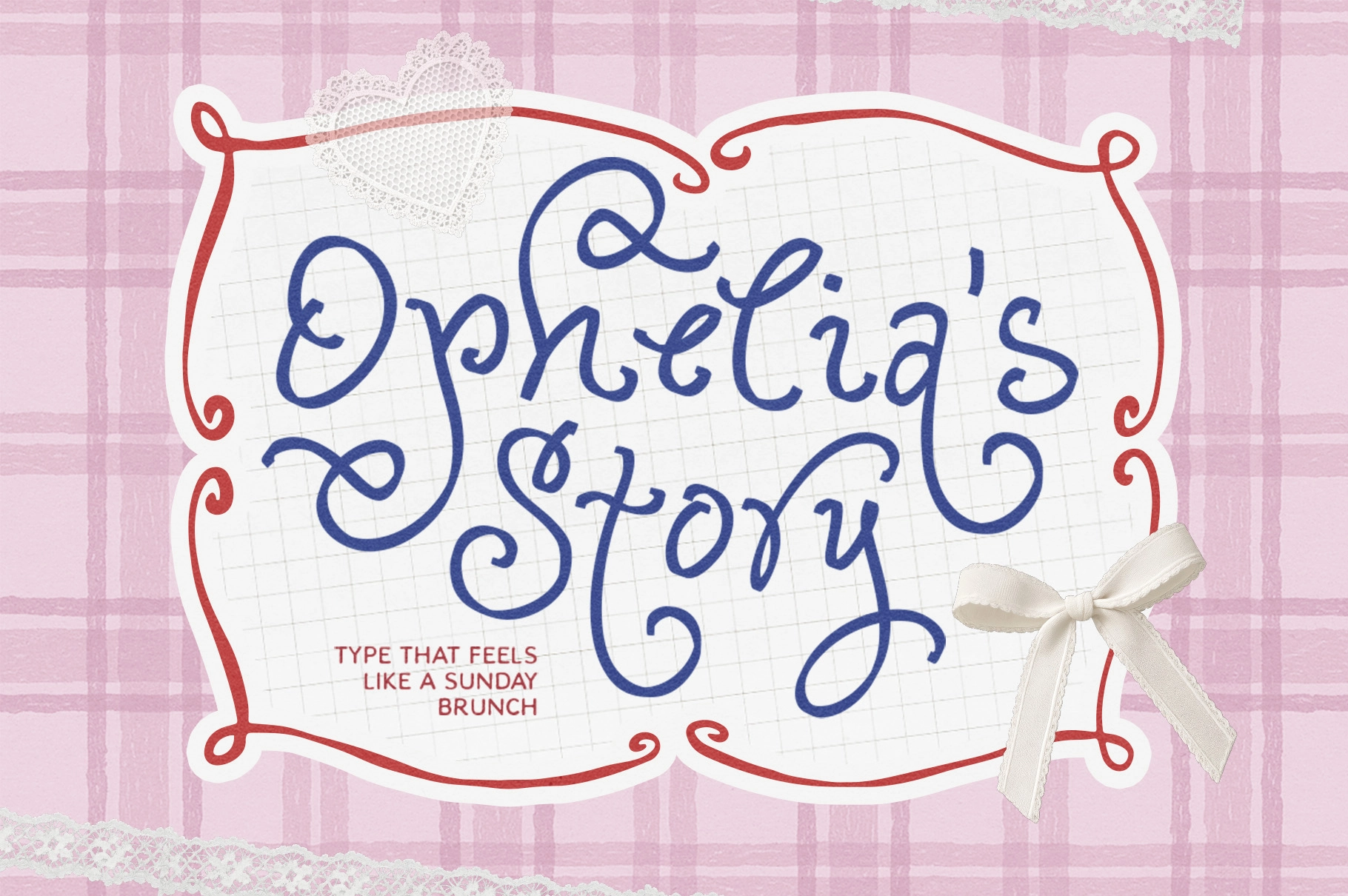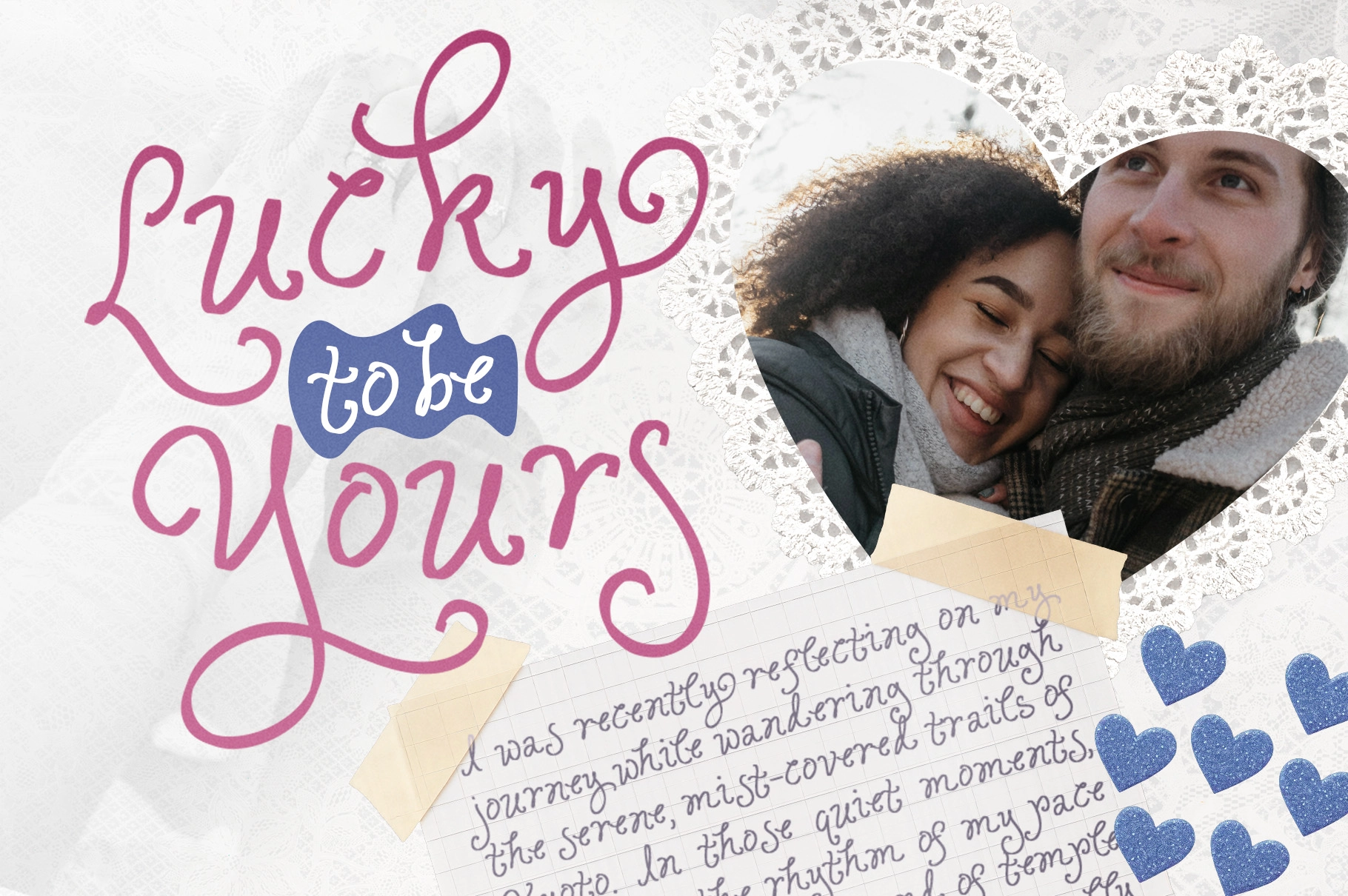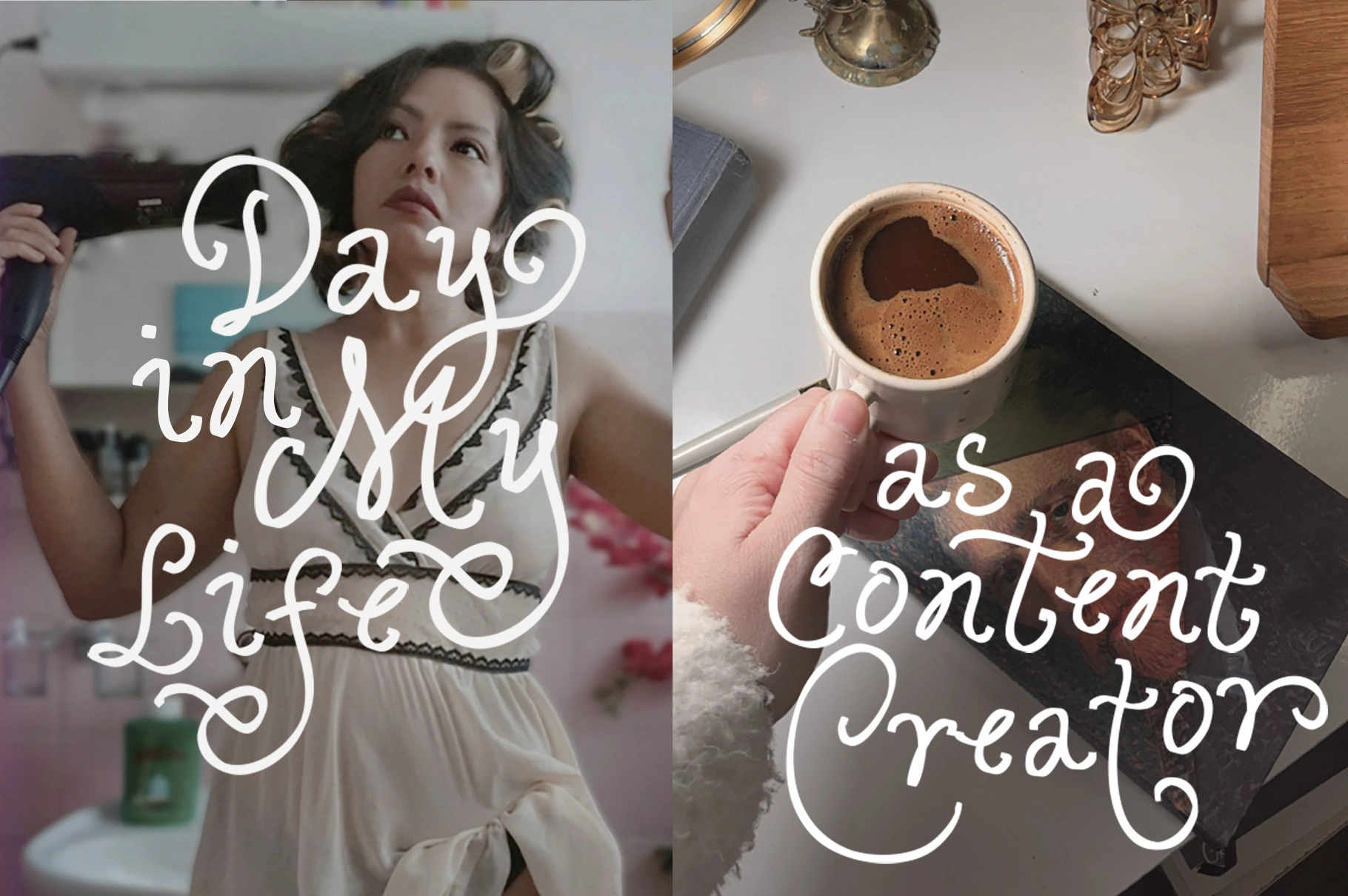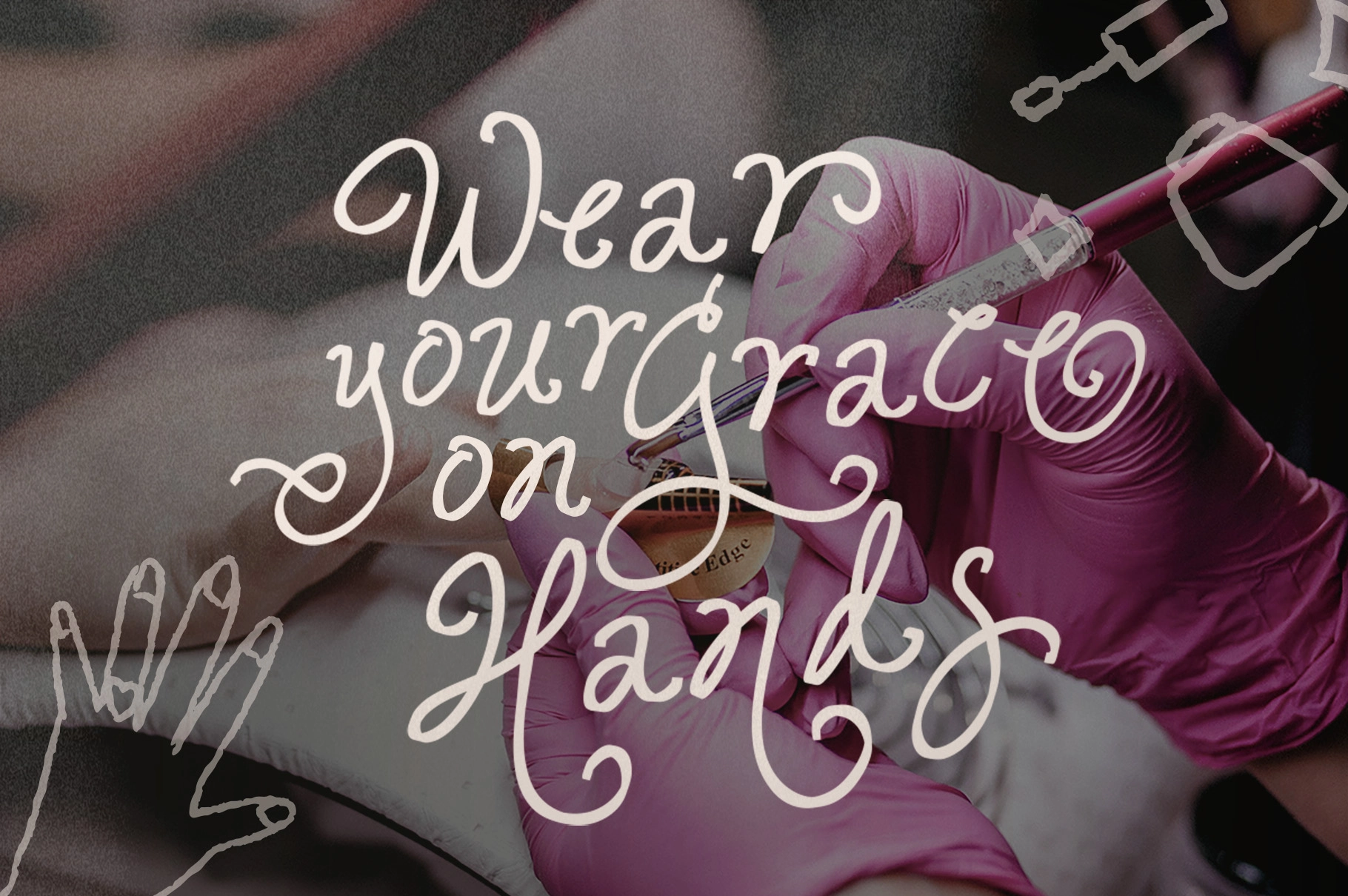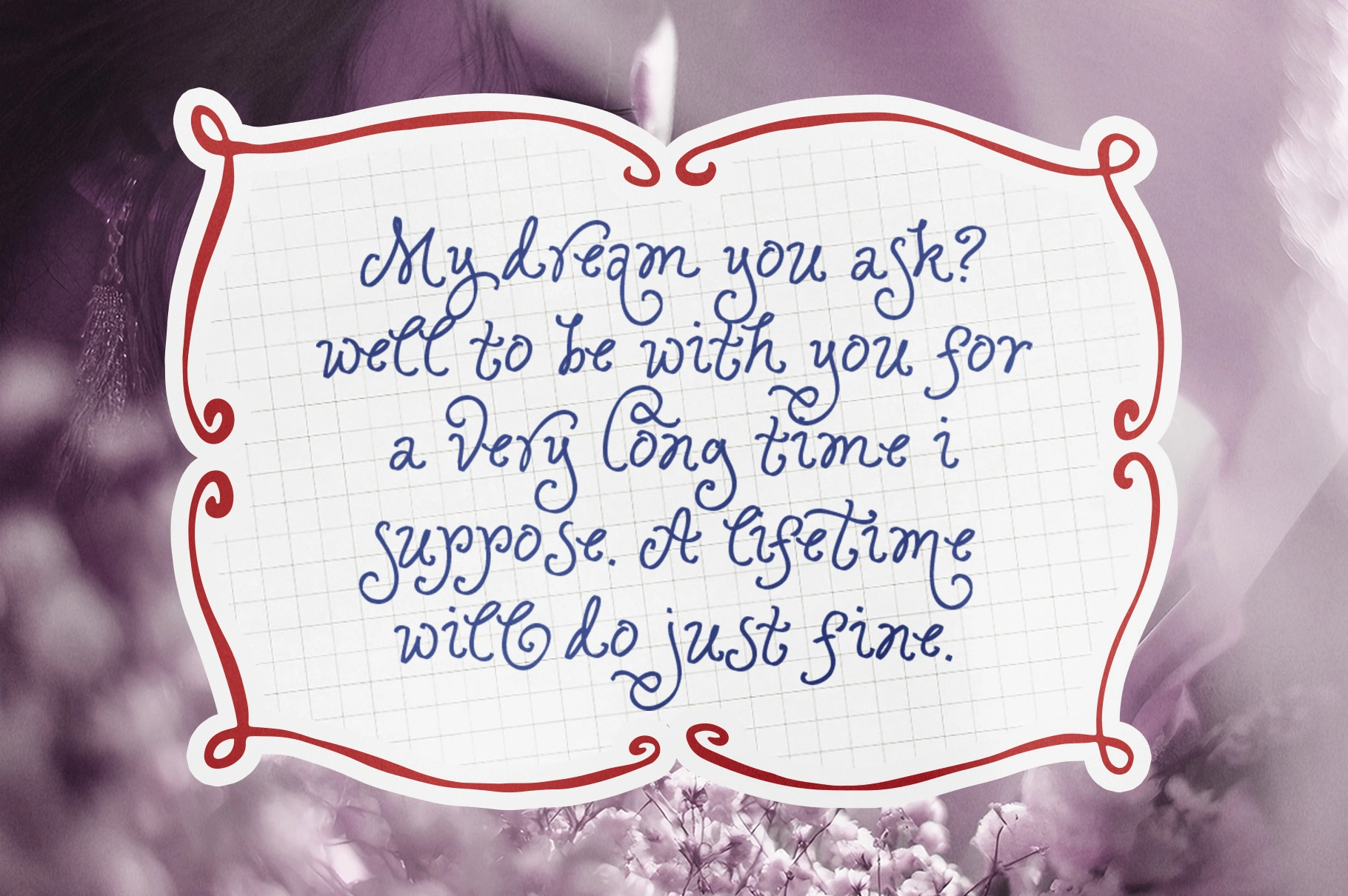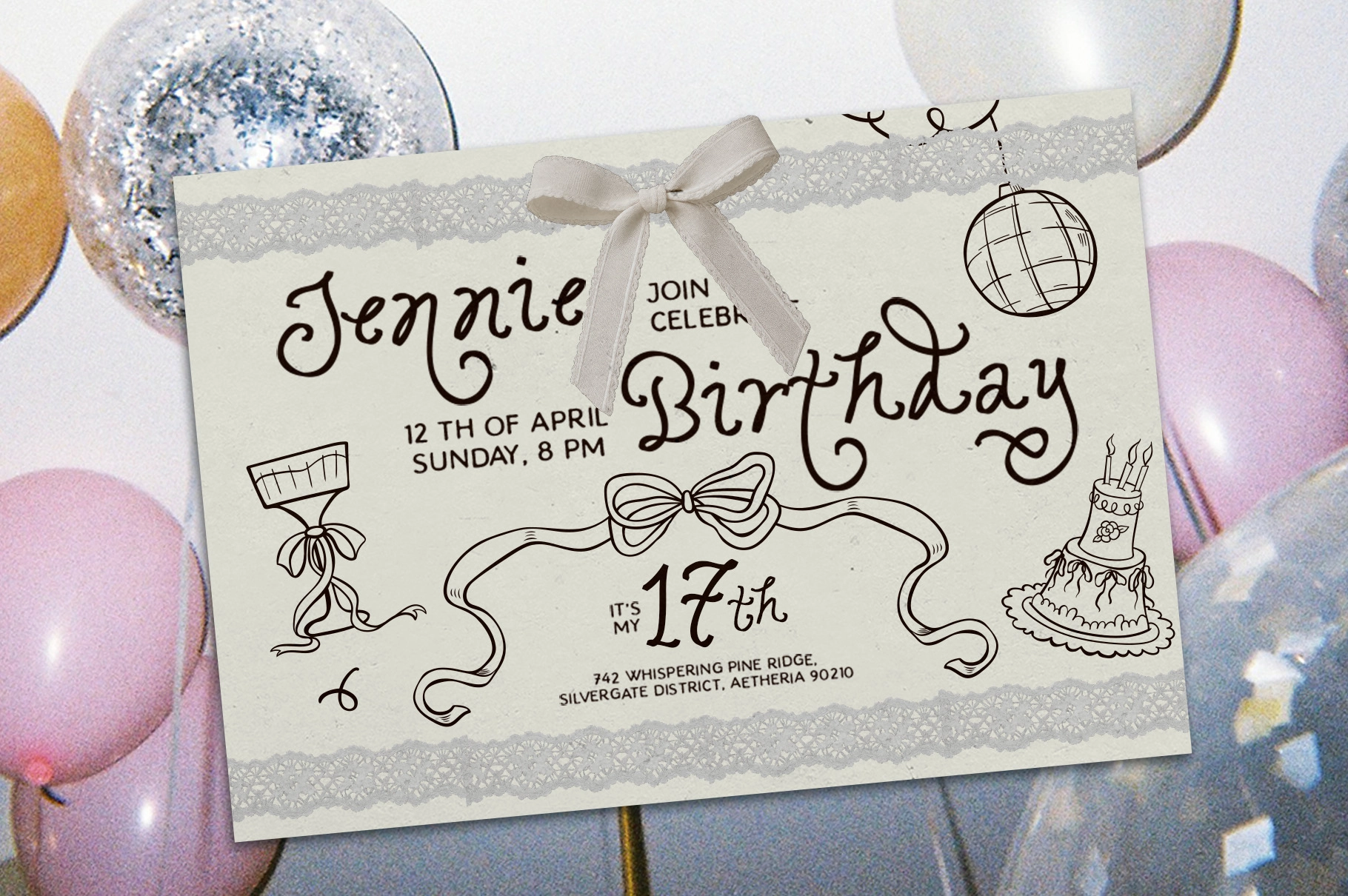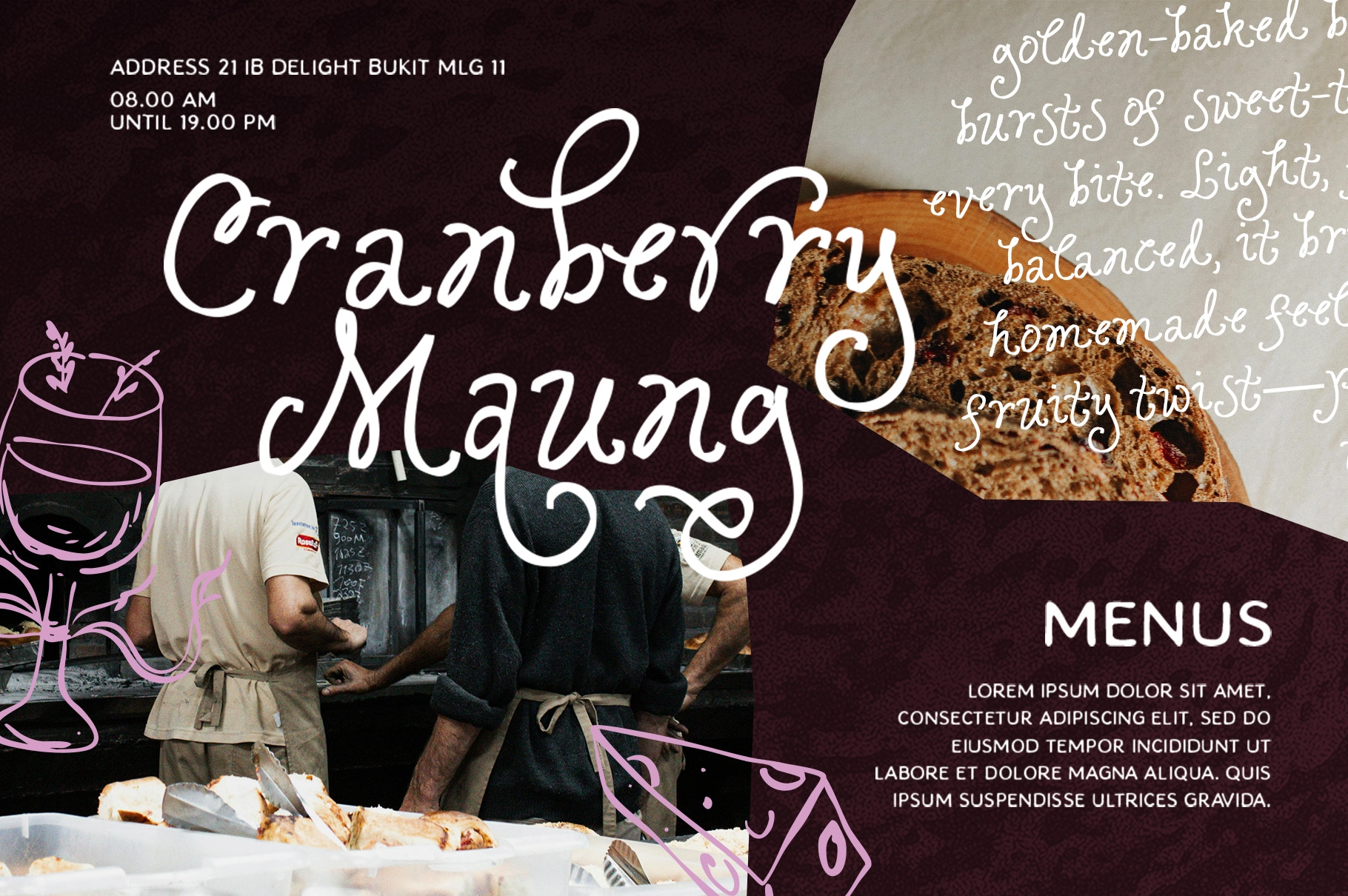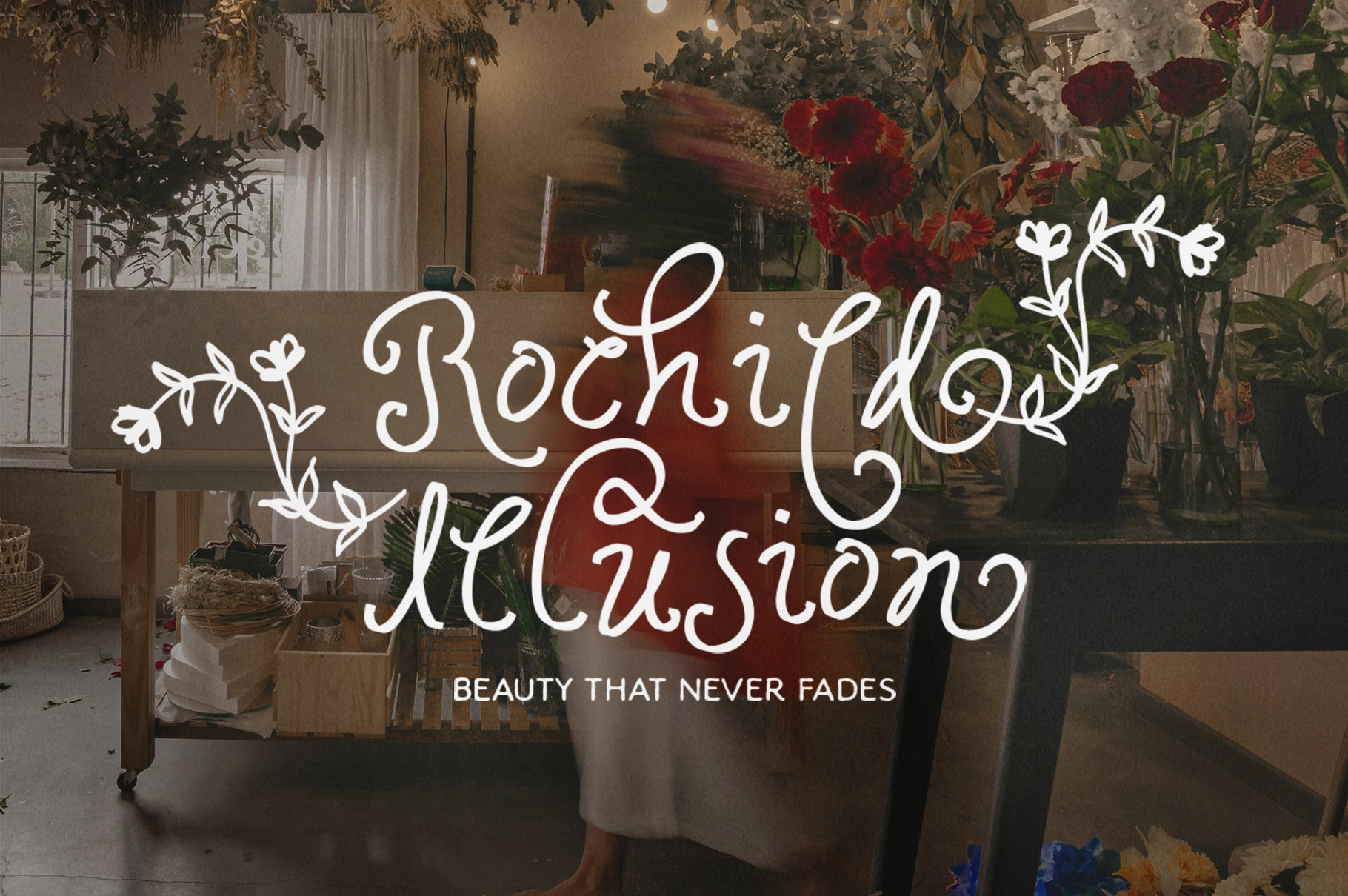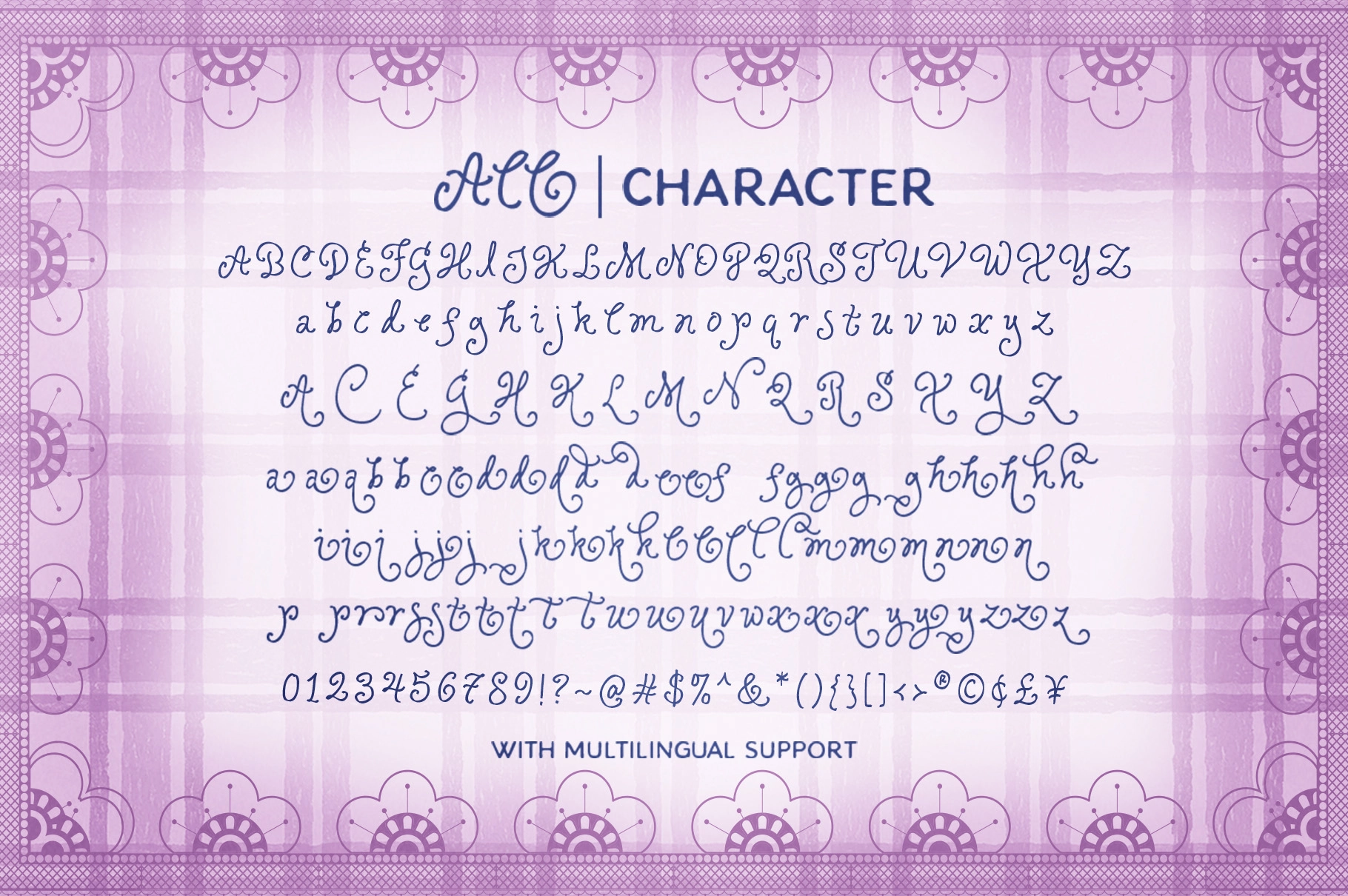
Ophelia Story - Curly Script Font
Ophelia Story
This script font has a sweet handwritten style with curly strokes, playful loops, and decorative alternates. Its feminine character is soft, expressive, and a little dramatic — the good kind.
Ophelia Story works well for wedding invitations, birthday cards, beauty branding, boutique logos, romantic quotes, scrapbook pages, packaging labels, greeting cards, social media graphics, craft projects, sticker designs, party stationery, and more. The swirly alternates add extra charm to names, short phrases, and display text that needs a personal, hand-drawn touch.
- Swirly alternates